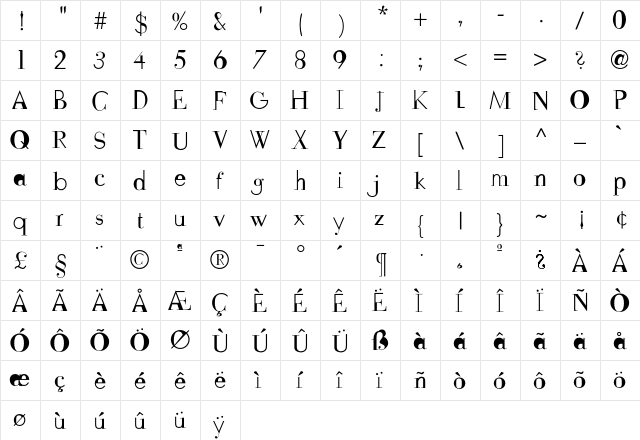
FudoniOne Regular
Design Context for FudoniOne Typeface
FudoniOne offers clean, dependable letterforms without strong stylistic allegiance, making it a practical choice for designers who need flexibility.